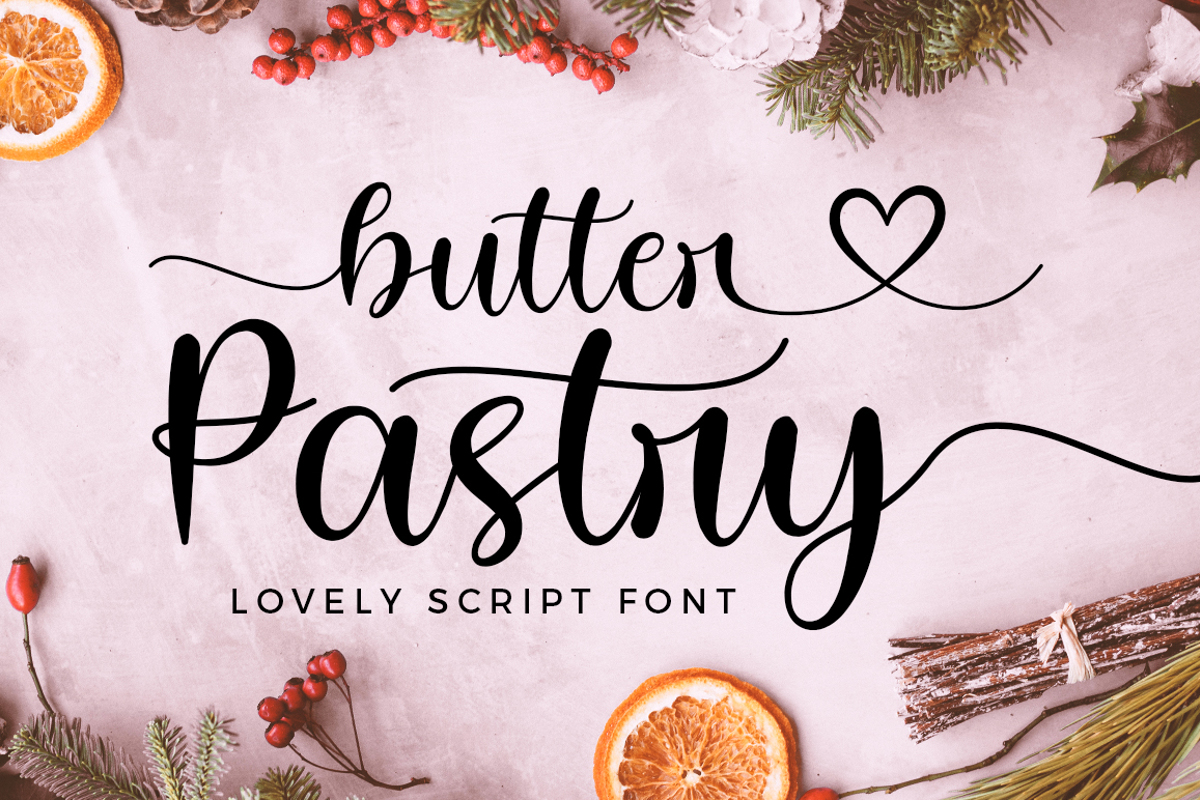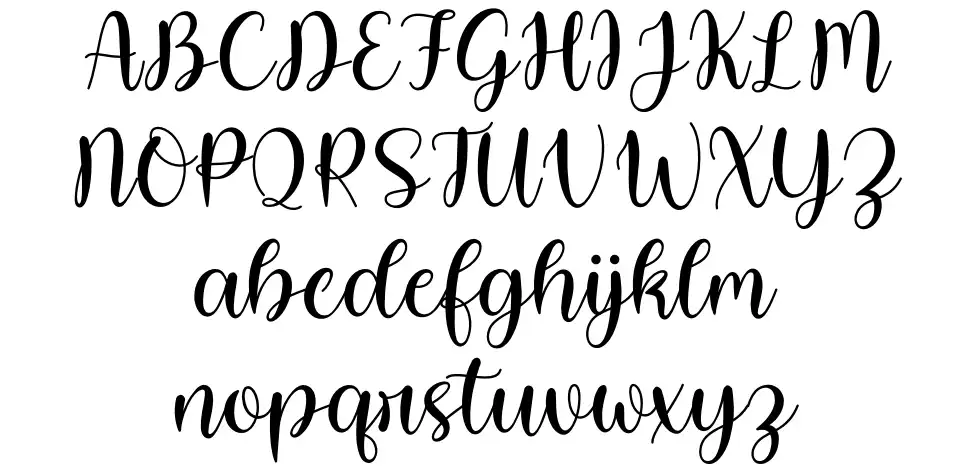
Butter Pastry Font . By installing or using this font, you are agree to the product. Butter pastry font free download. A great choice for highlighting your design elements. Butter pastry is a font. Hello, thanks for downloading butter pastry trial. The typeface contains 1 file and supports 41 languages. Butter pastry was developed hamzah muhamad ihsan. Butter pastry is a script type font that can be used on any device such as pc, mac,. This font includes heart connecting lowercase swashes, beginning and ending lowercase swashes, ascender descender lowercase Customize your own preview on ffonts.net to make sure. Butter pastry is a short and lovely script font with beautiful and romantic calligraphy lines. Butter pastry font download is available free from fontget. The butter pastry font contains over 20 beautifully designed characters.
Butter pastry is a script type font that can be used on any device such as pc, mac,. Customize your own preview on ffonts.net to make sure. Butter pastry was developed hamzah muhamad ihsan. Butter pastry font download is available free from fontget. The butter pastry font contains over 20 beautifully designed characters. By installing or using this font, you are agree to the product. The typeface contains 1 file and supports 41 languages. Butter pastry font free download. Hello, thanks for downloading butter pastry trial. This font includes heart connecting lowercase swashes, beginning and ending lowercase swashes, ascender descender lowercase
Butter Pastry Font The typeface contains 1 file and supports 41 languages. A great choice for highlighting your design elements. Butter pastry font free download. This font includes heart connecting lowercase swashes, beginning and ending lowercase swashes, ascender descender lowercase Butter pastry font download is available free from fontget. The typeface contains 1 file and supports 41 languages. The butter pastry font contains over 20 beautifully designed characters. By installing or using this font, you are agree to the product. Butter pastry is a script type font that can be used on any device such as pc, mac,. Hello, thanks for downloading butter pastry trial. Customize your own preview on ffonts.net to make sure. Butter pastry was developed hamzah muhamad ihsan. Butter pastry is a font. Butter pastry is a short and lovely script font with beautiful and romantic calligraphy lines.
Butter Pastry Windows font free for Personal Butter Pastry Font By installing or using this font, you are agree to the product. Butter pastry is a short and lovely script font with beautiful and romantic calligraphy lines. Butter pastry was developed hamzah muhamad ihsan. The typeface contains 1 file and supports 41 languages. Butter pastry is a script type font that can be used on any device such as pc,. Butter Pastry Font.
Butter Pastry Font Download Free for Desktop & font Butter Pastry Font Customize your own preview on ffonts.net to make sure. A great choice for highlighting your design elements. Butter pastry is a script type font that can be used on any device such as pc, mac,. Butter pastry font download is available free from fontget. Butter pastry is a font. By installing or using this font, you are agree to the. Butter Pastry Font.
Download Butter Pastry font Butter Pastry Font Butter pastry was developed hamzah muhamad ihsan. Butter pastry is a short and lovely script font with beautiful and romantic calligraphy lines. Customize your own preview on ffonts.net to make sure. The typeface contains 1 file and supports 41 languages. Butter pastry font download is available free from fontget. The butter pastry font contains over 20 beautifully designed characters. By. Butter Pastry Font.
Download Butter Pastry font Butter Pastry Font By installing or using this font, you are agree to the product. Butter pastry is a script type font that can be used on any device such as pc, mac,. Butter pastry is a short and lovely script font with beautiful and romantic calligraphy lines. Butter pastry font download is available free from fontget. Hello, thanks for downloading butter pastry. Butter Pastry Font.